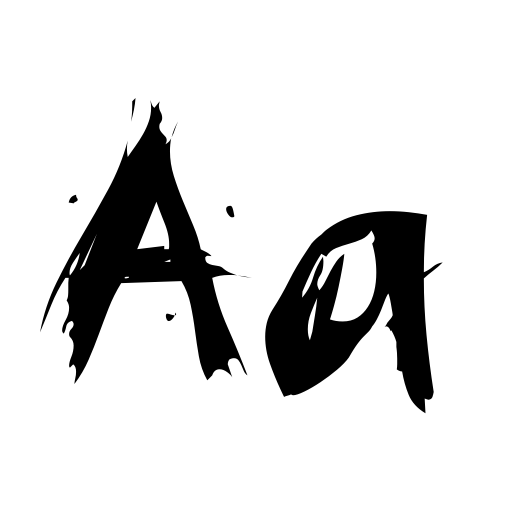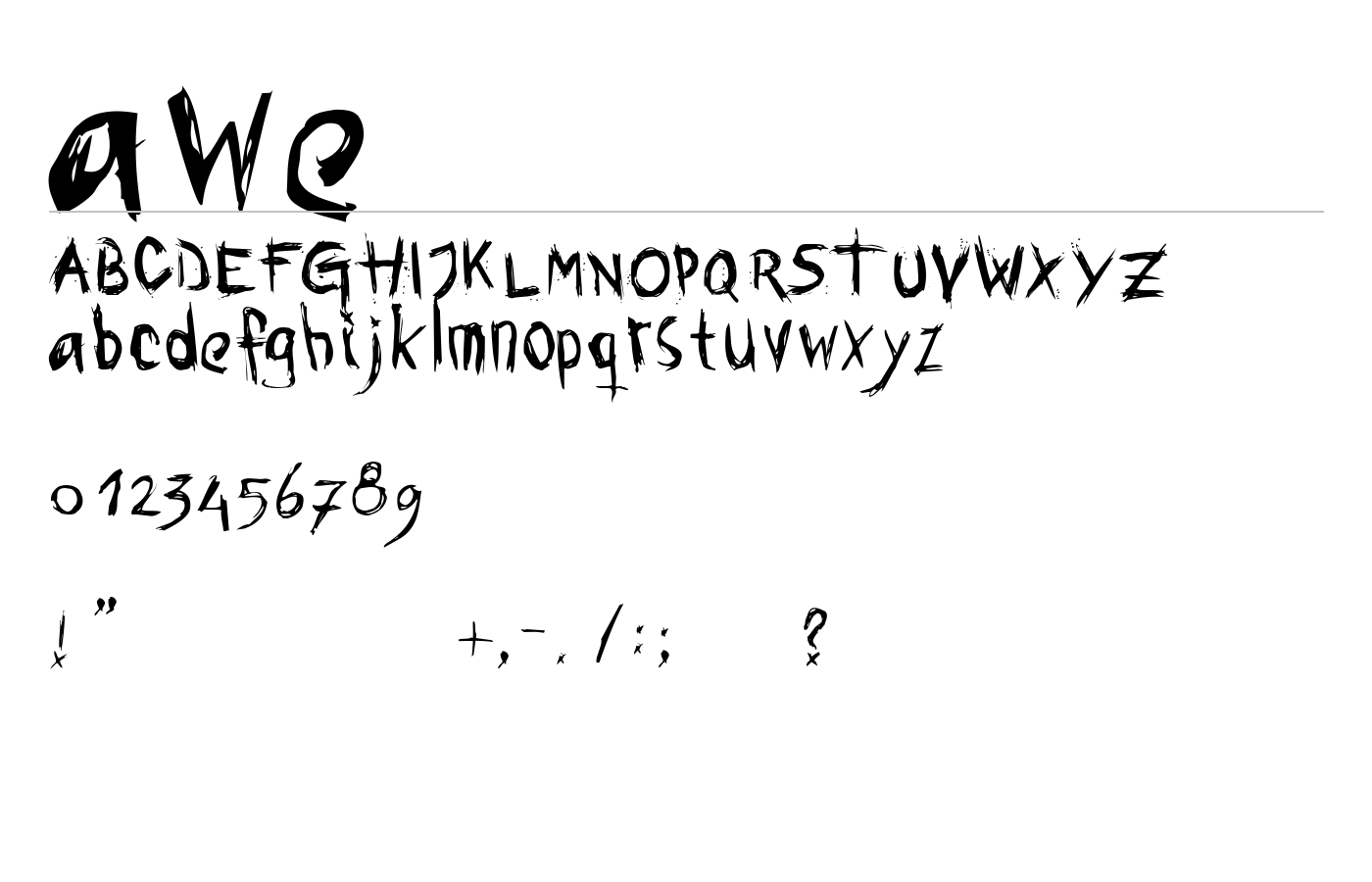
Awe Font is a distinctive, hand-drawn sans serif typeface with an edgy, rough texture that gives it a raw, expressive character. Its irregular strokes and sharp, uneven edges create a dramatic, almost gothic feel, making it ideal for striking headlines, artistic projects, or designs seeking a bold, unconventional vibe. This font works best in creative branding, posters, or anything needing a sense of intense emotion and individuality.
| Font family | awe Font |
| Designer | Daniel Wiberg |